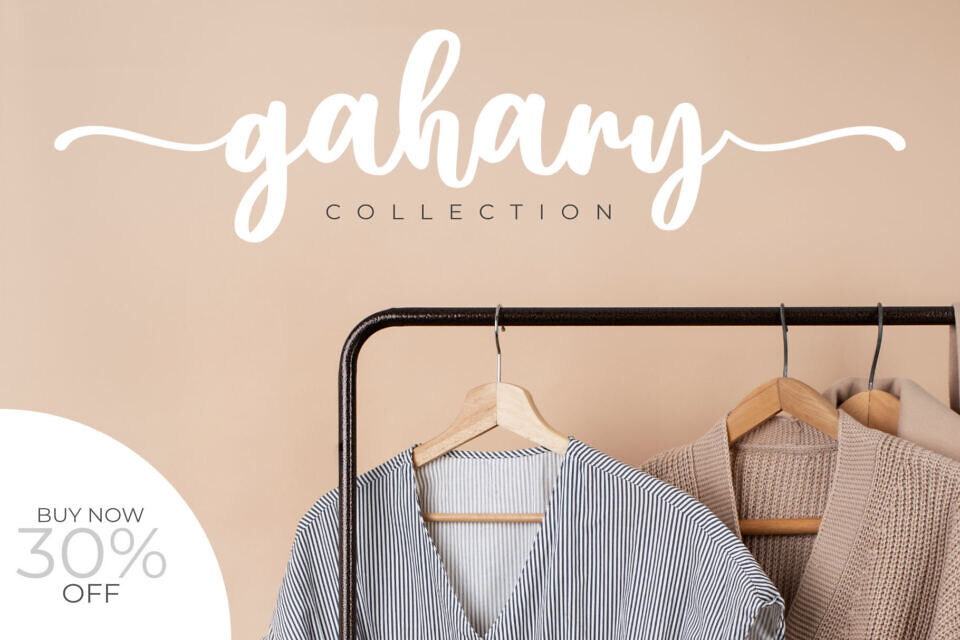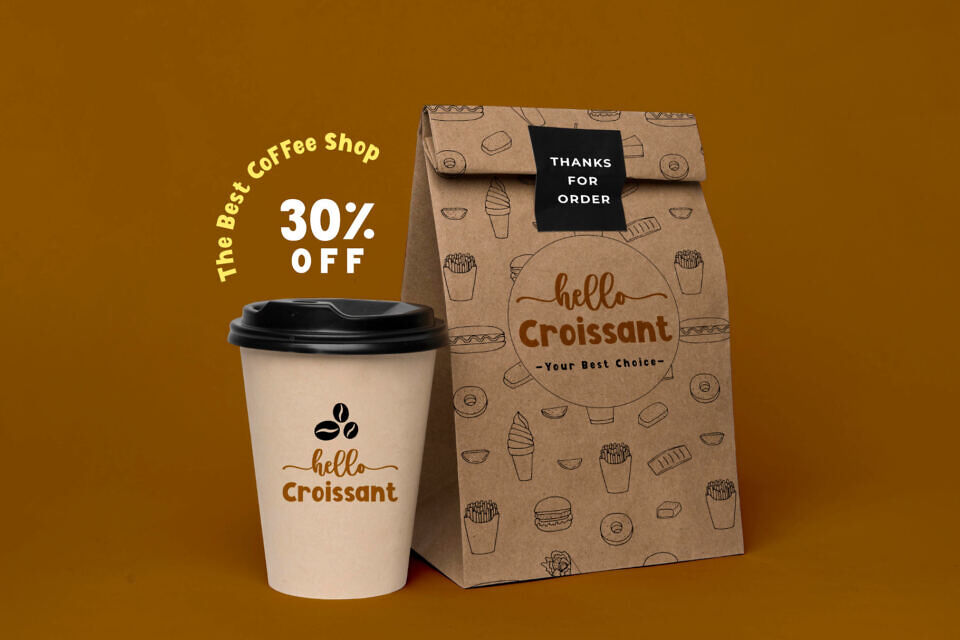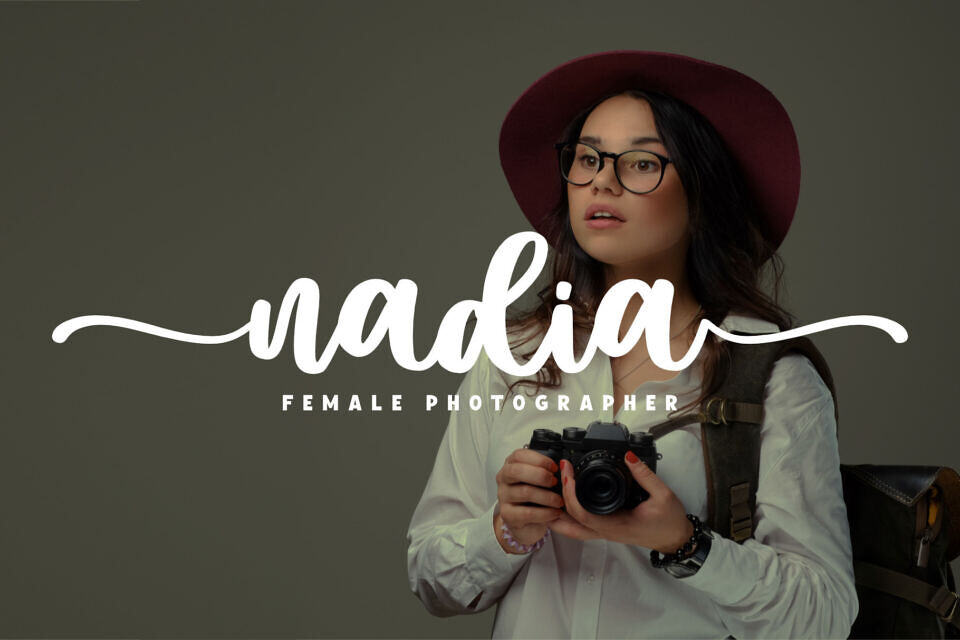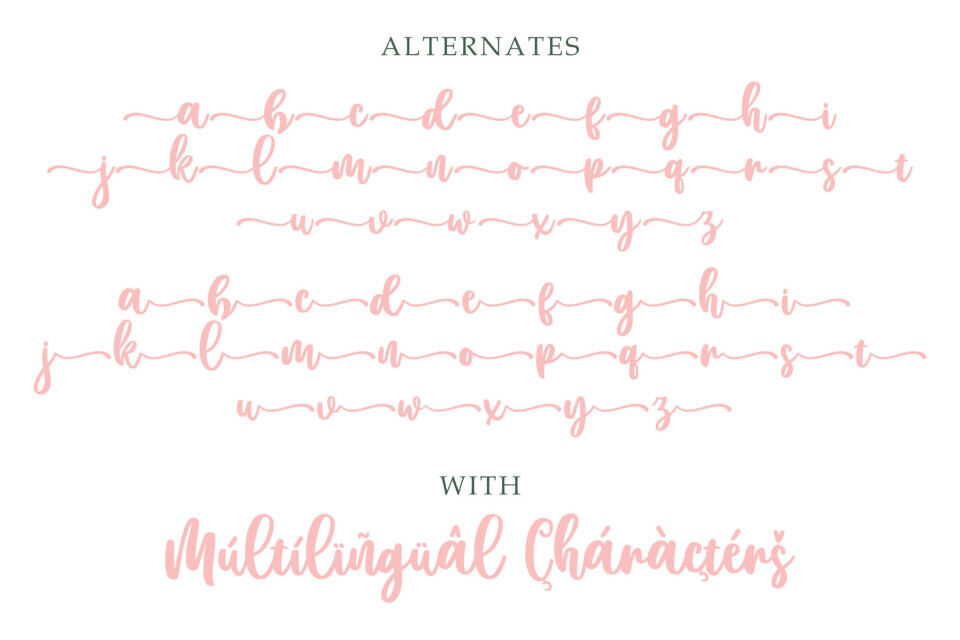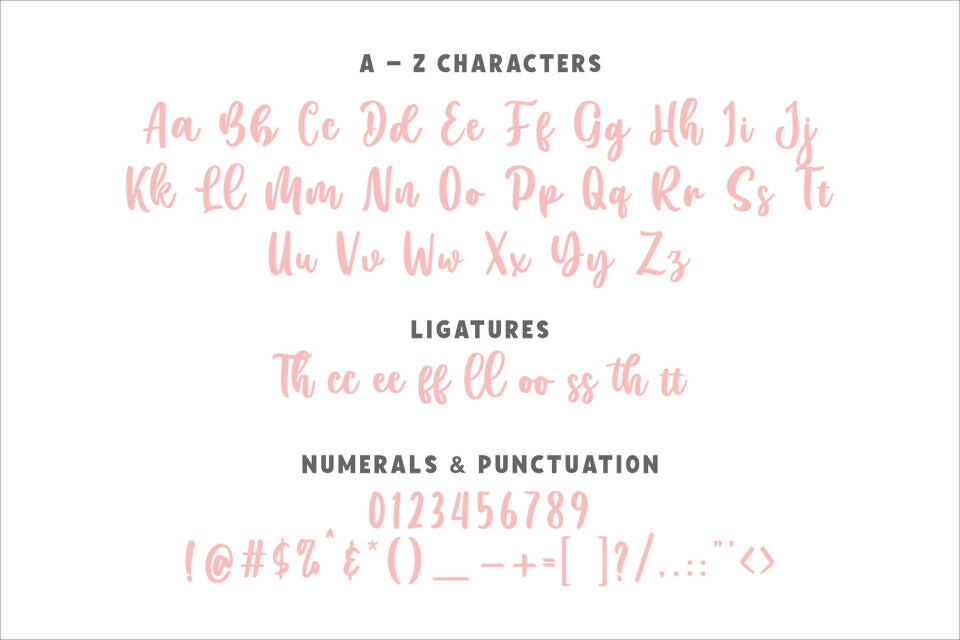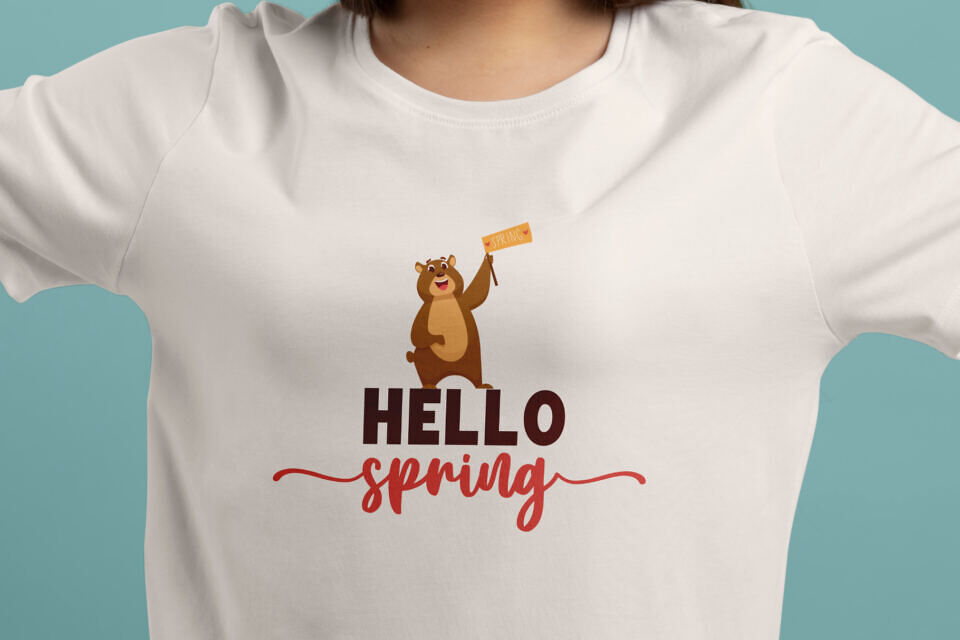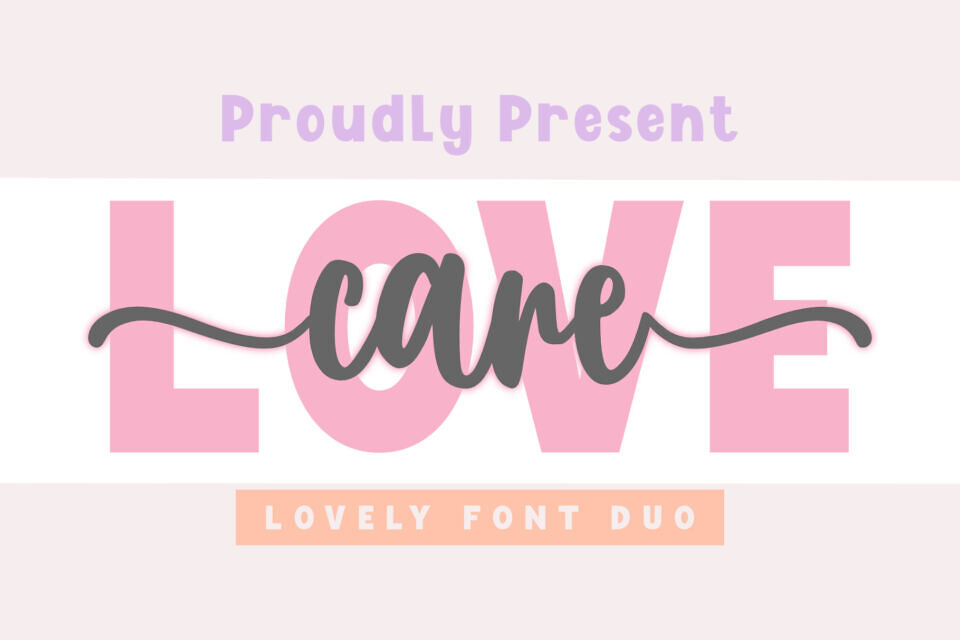
Love Care Script Font
Love Care is a sweet handwritten font duo that combines a playful script with a charming sans serif. Designed with ligatures and alternates, it offers flexibility and creativity for your projects.
Perfect for logos, posters, flyers, banners, invitations, and social media graphics, this adorable font duo adds warmth, cuteness, and personality to any design. Whether you’re crafting for personal use or professional branding, Love Care is a delightful choice to make your work stand out.